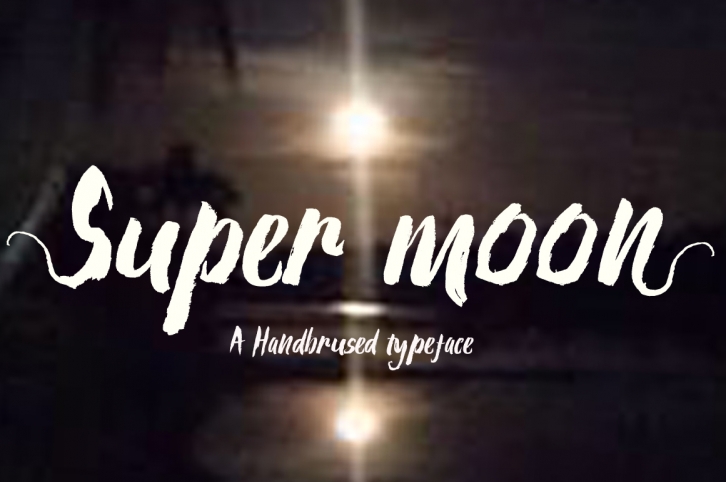
Super moon is a beautiful font that was designed by microcreative. It's a great choice for designers and creatives who need such a font. It was released on November 20, 2016 and the file size is 13.93 MB. Super moon may give a more youthful, expressive and casual look to your project. It is a very beautiful, refined, elegant, and high-quality font.